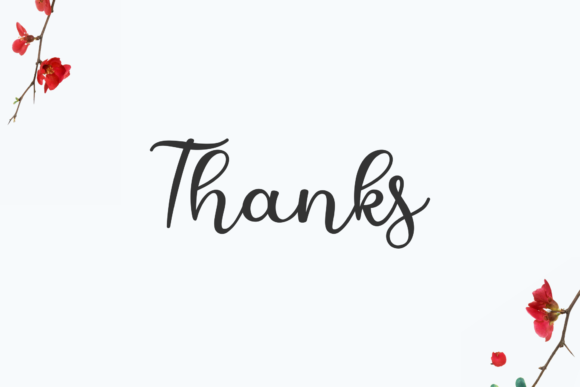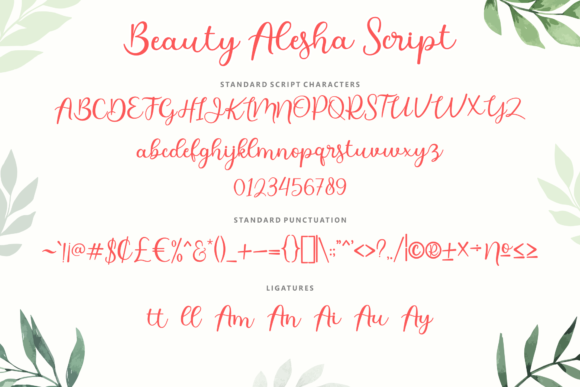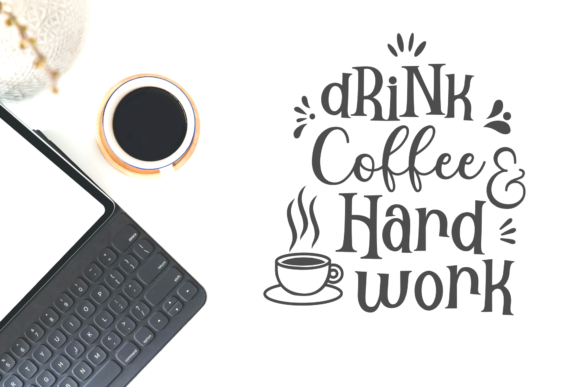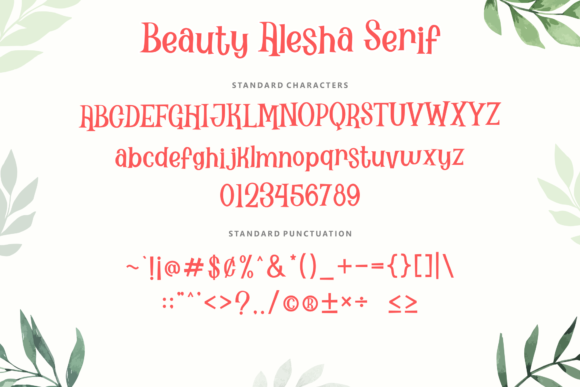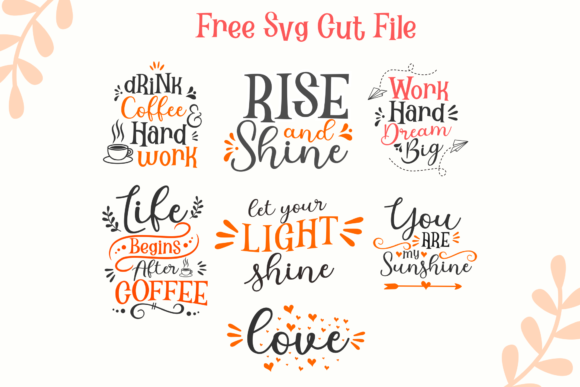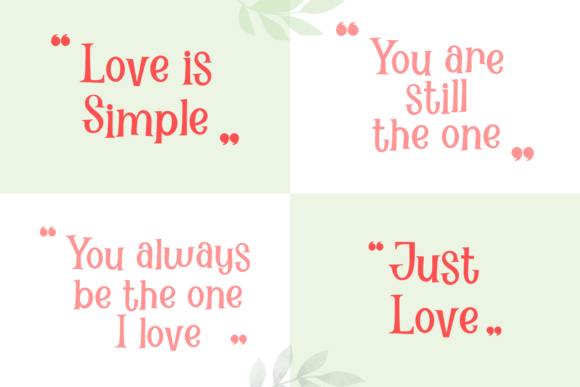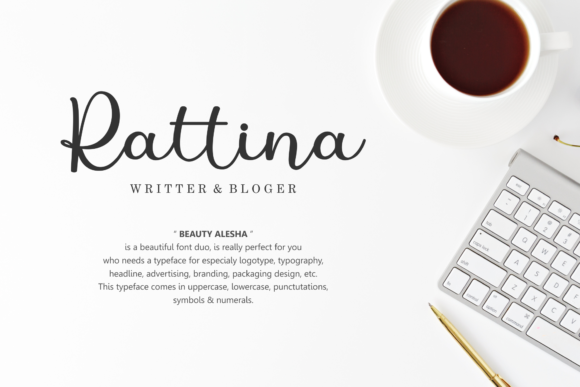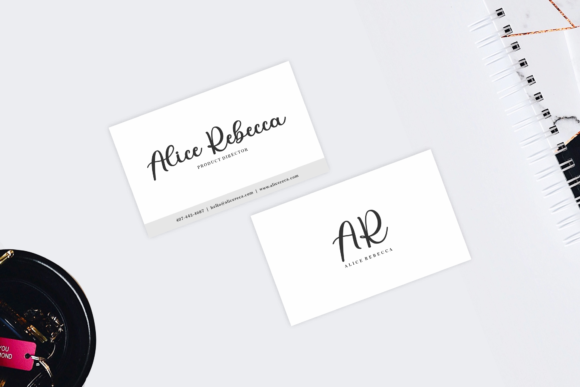
Beauty Alesha Font
About Beauty Alesha Font
Beauty Alesha duo is a match made in heaven. This handwritten font will elevate a wide range of design projects to the highest level, be it branding, headings, wedding designs, invitations, signatures, logos, labels, and much more!